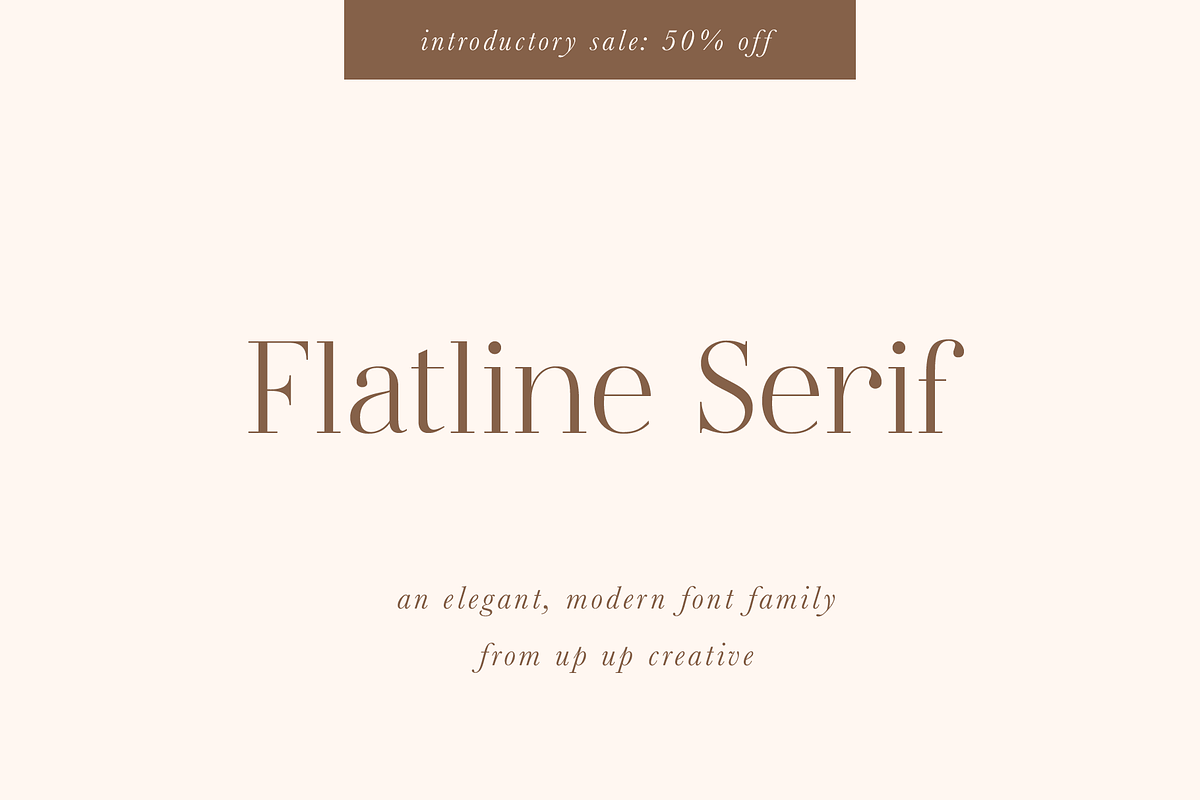
Flatline Serif Complete Font Free Download is a comprehensive and beautifully crafted serif font family featuring 16 unique styles. From elegant thin weights to bold, impactful cuts, this font collection is perfect for editorial design, branding, logos, book covers, and high-end advertising.
Each font in the Flatline family offers timeless sophistication with a modern twist. The sharp serifs and smooth curves give your text a refined, professional appearance while maintaining readability across all formats and sizes. Whether you need versatility or visual drama, Flatline has the range to support all your creative projects.
With this full set, designers gain a flexible toolbox for creating cohesive and stunning visual identities.